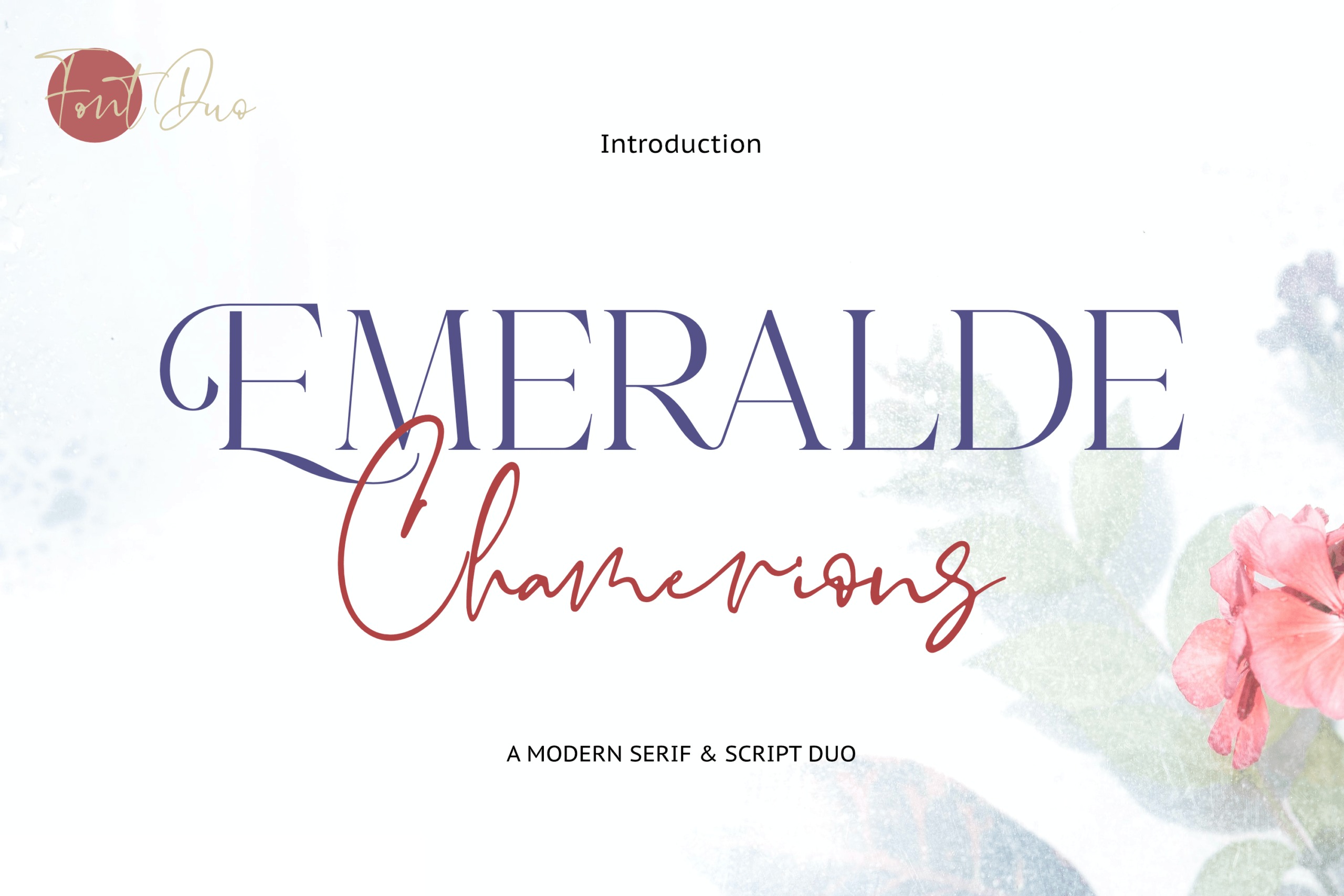
Emeralde Chamerions Font Duo
Emeralde Chamerions Font Duo is a premium-quality font developed to enhance your work with a polished, modern, and visually elevated look. Emeralde Chamerions – Stylish Font Duo , Display Serif And Signature Stylish Script inspired by famous logo perfect for the purposes of designing templates, brochures, videos, advertising branding, logos and more.
+ Ligatures
+ Alternates
+ International Accent
Fonts include multilingual support